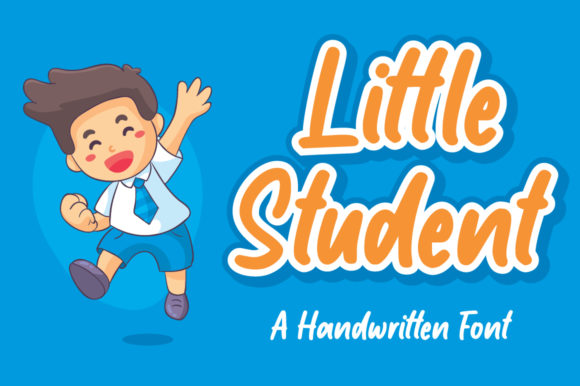
Welcome to the Little Student Font family, the enchanting script font that will transport you to a world of creativity and charm. Experience the magic of handwritten elegance with this captivating font, designed to bring your designs to life.
Journey into an enchanting world of design possibilities with Little Student Font. Its authentic and charming feel will inspire your creativity like never before. Immerse yourself in the beauty of wedding invitations that exude romance and sophistication. Transform your stationary art into captivating expressions of personality. Create social media posts that stand out from the crowd with their unique flair. And design greeting cards that touch the hearts of your loved ones.
Little Student Font is the key to unlocking your creative potential. Its versatility knows no bounds, bringing a touch of magic to a wide range of design projects. Unleash your imagination and explore endless possibilities. Create eye-catching logos that leave a lasting impression. Design brochures and flyers that captivate your audience. Craft PowerPoint presentations that engage and inspire. The Little Student Font is your passport to a world of design excellence.
Embrace the beauty of simplicity with Little Student Font. Its clean lines and unpretentious style make it the perfect choice for minimalist designs. Let your words shine through with this elegant and understated font. Create websites that are easy on the eyes and captivating to the mind. Design business cards that exude professionalism and sophistication. Craft reports and documents that communicate with clarity and impact.
Step into the world of Little Student Font and discover a world of design possibilities. With its magical handwritten charm, it will transform your designs into captivating works of art. Let your creativity soar and experience the joy of creating with Little Student Font.